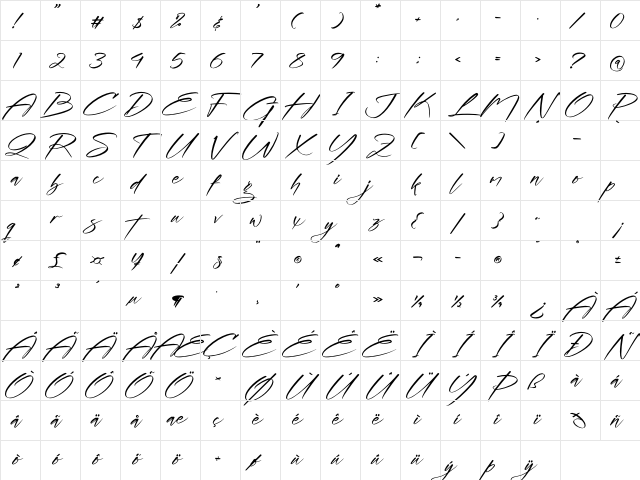
Ramsoneth Regular
Foundry: Glorytype
Designer: Glorytype
Design Context for Ramsoneth
Ramsoneth is a composed and adaptable typeface that performs quietly and consistently across a wide range of design contexts.
Pro Tip: Use Ramsoneth in both headline and body roles to test its range before committing to a single application.